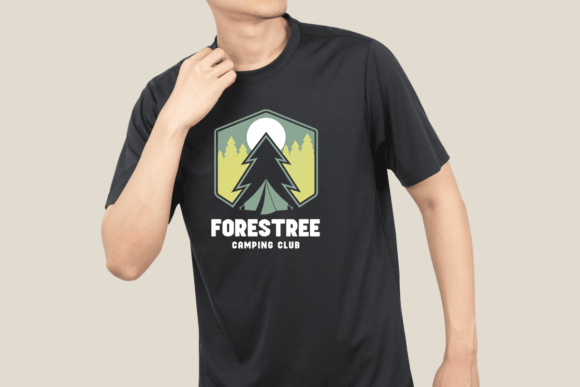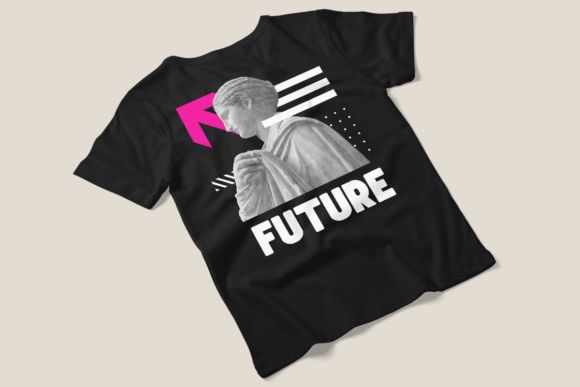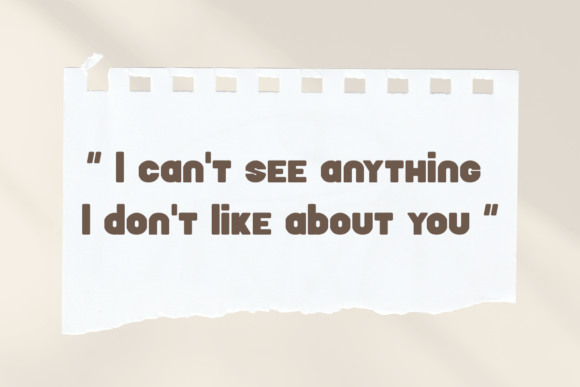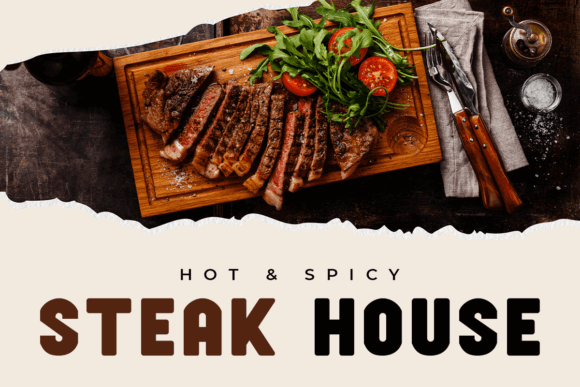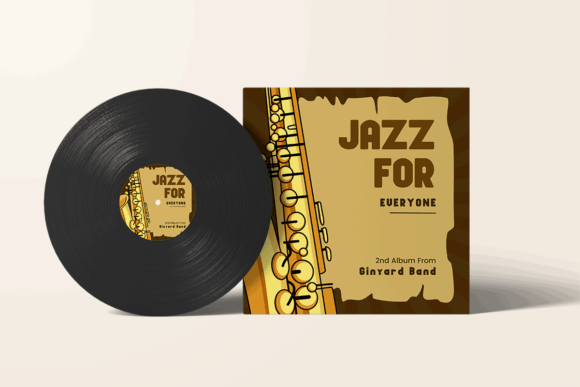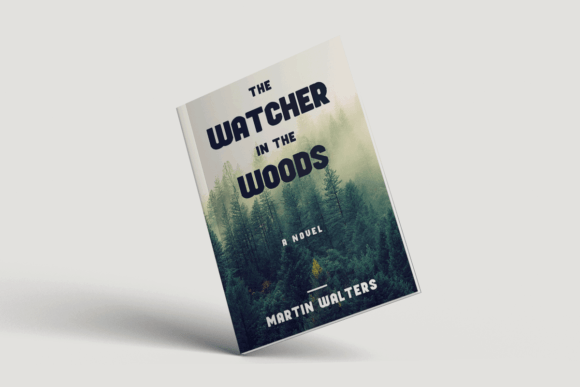
Introduction to Fortman Font
Have you ever stared at a blank screen, trying to come up with the perfect design for your next creative project? The cursor blinks, and your mind goes blank. It’s a feeling we’ve all been there. But what if you had the right tool to spark your creativity and make your design stand out? That’s where the Fortman Font comes in – a friendly, easily readable typeface that’s perfect for creating eye-catching logos, social media posts, and more.
Key Features of Fortman Font
- High-quality design resource perfect for creative projects, offering a unique and elegant touch.
- Comes with a transparent background, allowing for easy customization and versatility in design applications.
- Unique characteristics include its modern and minimalist aesthetic, making it an excellent choice for a wide range of creative projects.
Honest Review: Fortman Font
As a designer, I’m always on the lookout for high-quality design resources to elevate my creative projects. The Fortman Font has caught my attention, and I’m excited to share my honest review.
- ✨ Unique and modern design aesthetic that sets it apart from other fonts
- ⚠️ Limited font styles and weights available, which may not be suitable for all design projects
- ⚠️ Some users may find the font’s modern design aesthetic too trendy or gimmicky
Overall, I’m impressed with the Fortman Font’s unique design and high-quality files. While it may not be suitable for every design project, it’s a great addition to any designer’s toolkit. With a little creativity, the Fortman Font can add a touch of sophistication and style to any creative project.
Use the Fortman Font consistently throughout your project to create a cohesive look. Experiment with different font sizes, colors, and styles to get the most out of this design resource. Also, make sure to use it in conjunction with other high-quality design elements to create a visually appealing project.
The Fortman Font is perfect for various creative projects, such as logos, business cards, brochures, and even social media graphics. Its transparent background makes it ideal for use on images and videos, giving your project a unique and professional look.